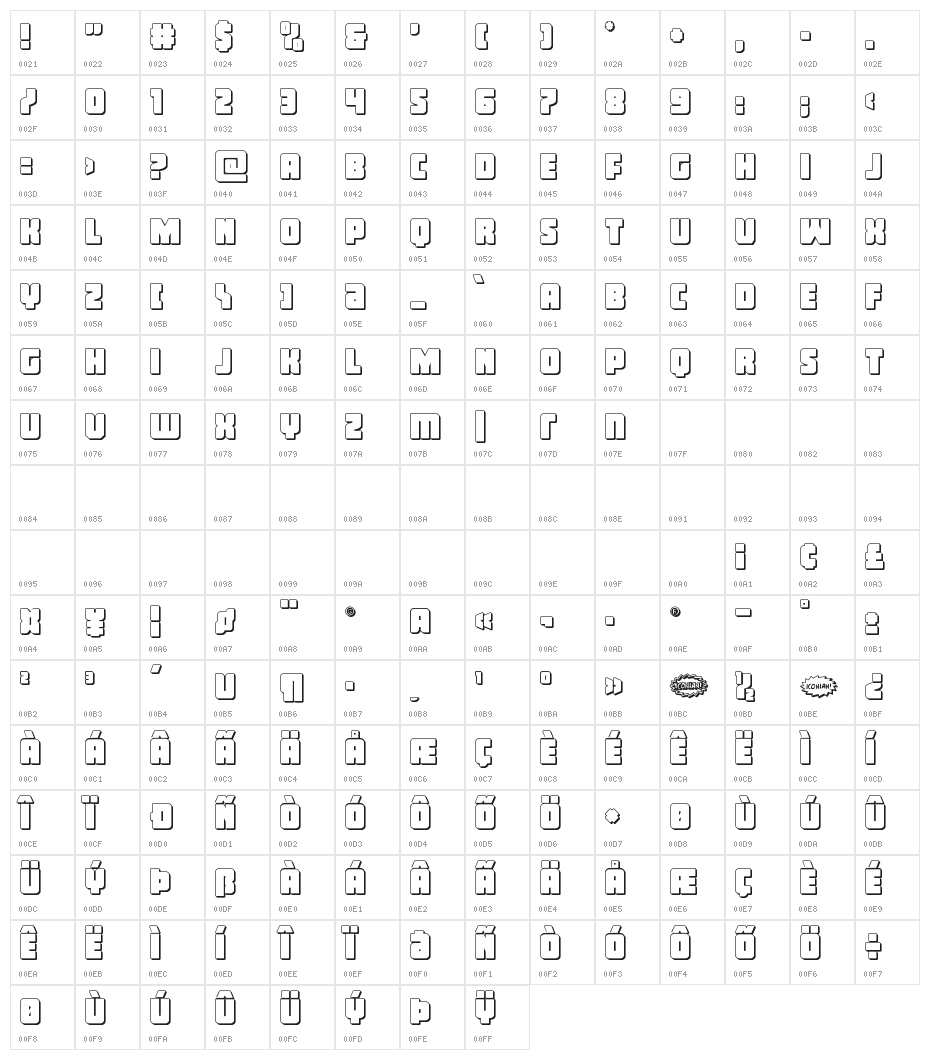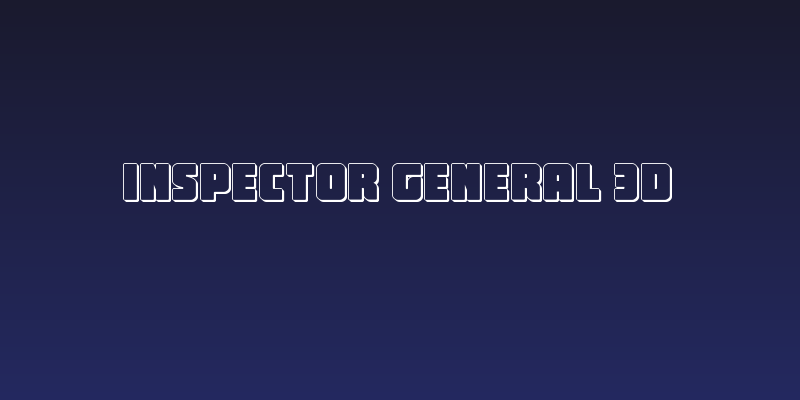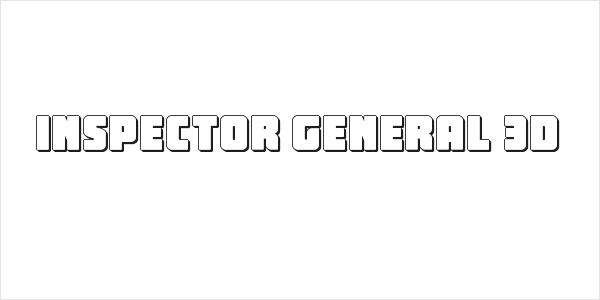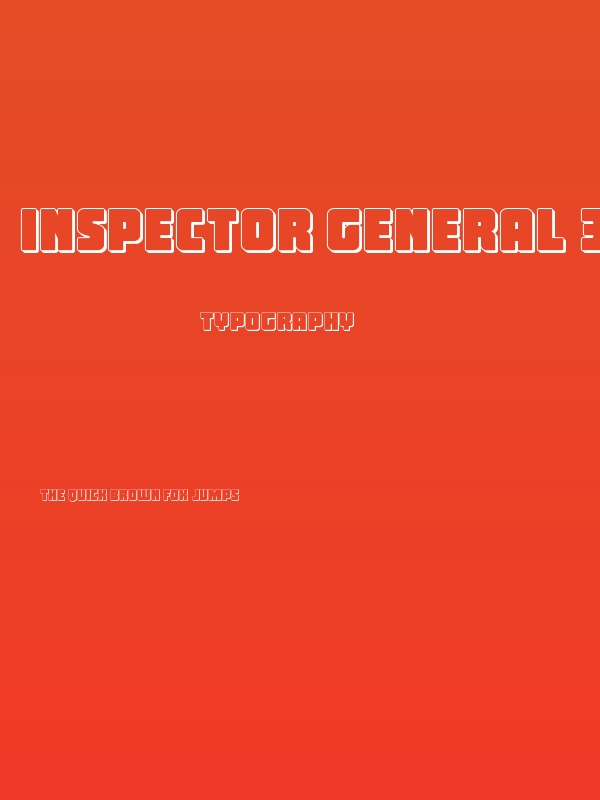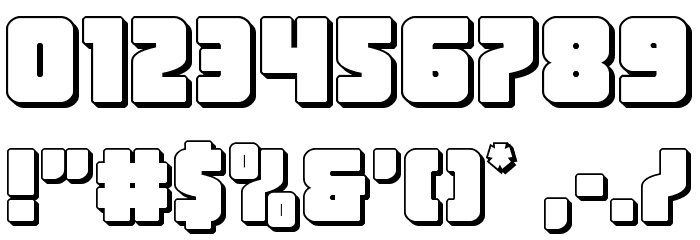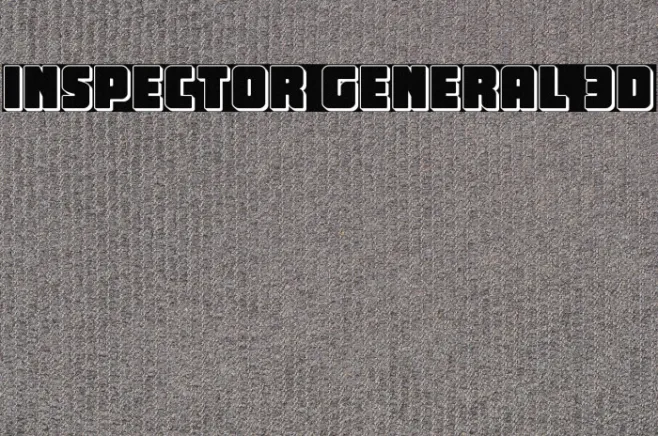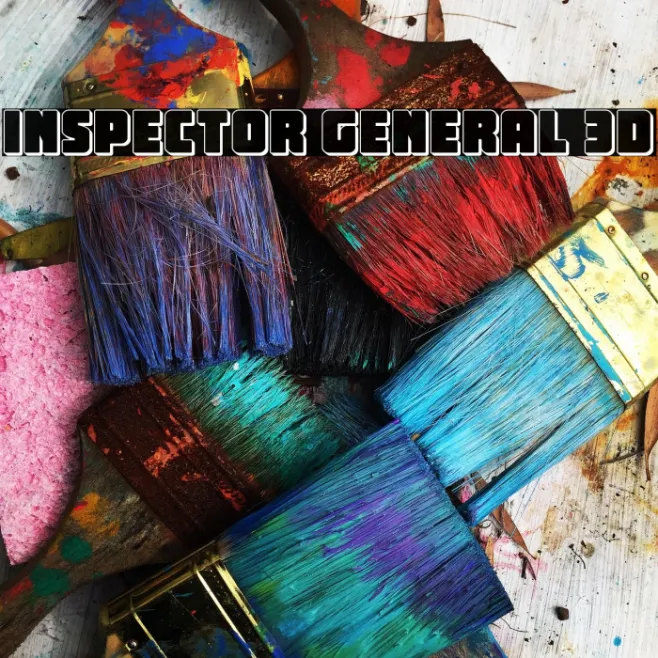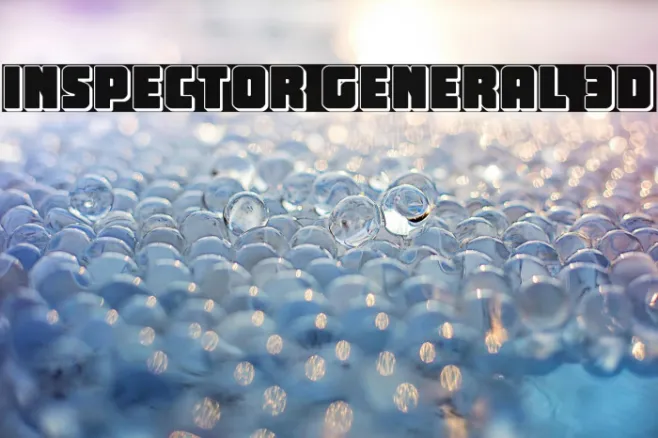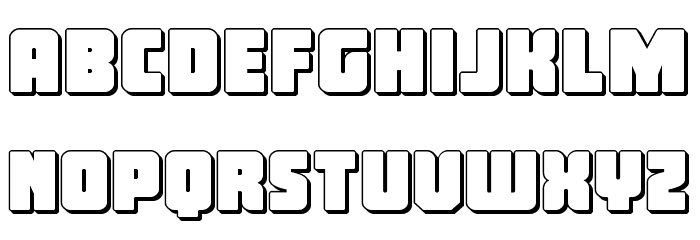
Inspector General 3D Font
Inspector General 3D Description
This bold, three-dimensional font features a blocky, geometric style with a strong presence. Each character is outlined, creating a shadow effect that enhances its 3D appearance. The uppercase letters are uniform in height, with consistent stroke widths that add to the font's robust and solid feel. The numerals and special characters maintain the same bold and structured design, ensuring a cohesive look across all glyphs. The font's playful yet sturdy design makes it ideal for projects that require a striking and memorable visual impact.
| Proposed Projects | Ideal for posters, video game graphics, logos, and any design needing a bold, eye-catching typeface. |